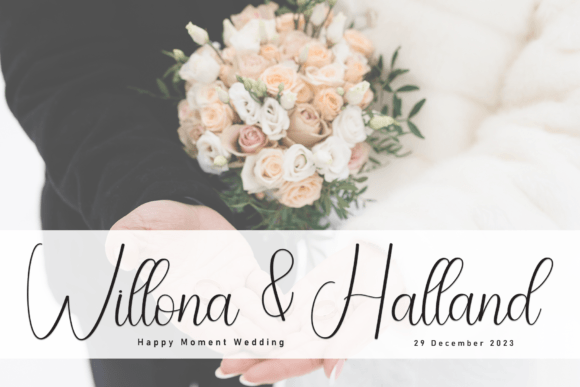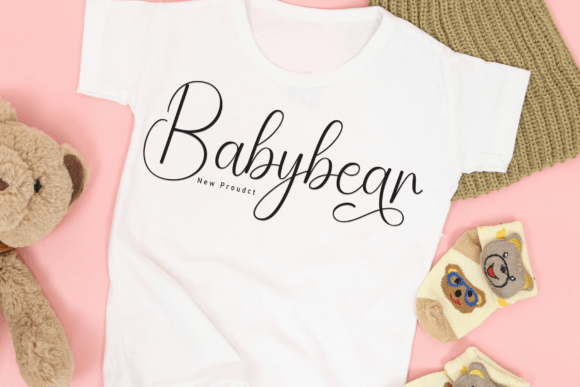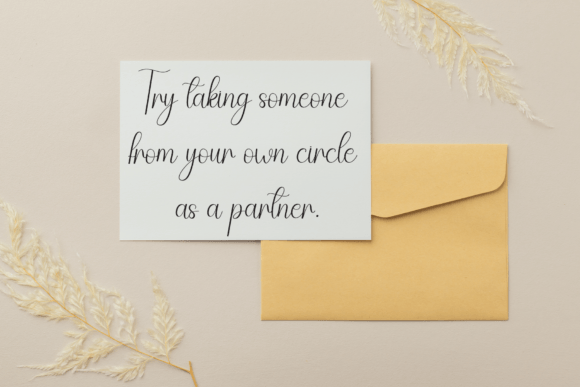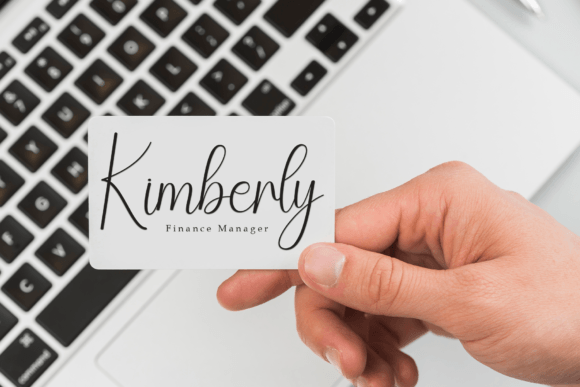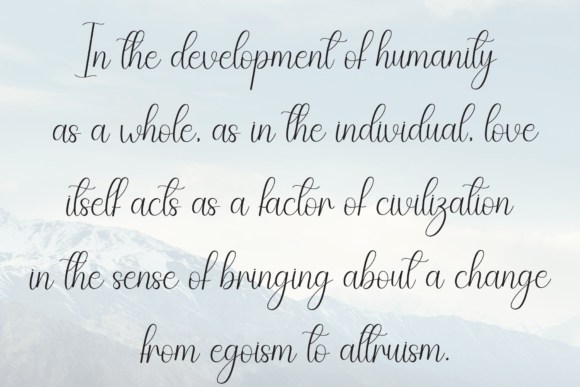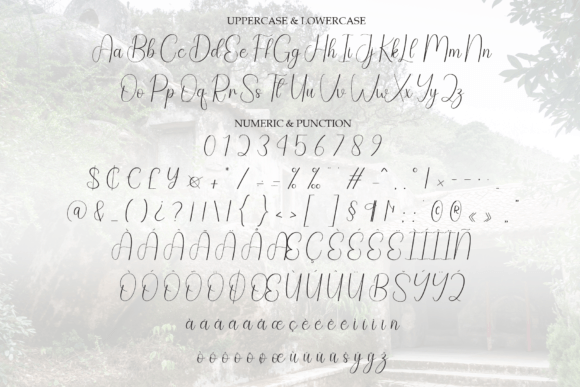
Cryptic Font: Add a Sweet and Friendly Touch to Your Designs
Are you looking for a font that can add a playful and whimsical touch to your designs? Look no further than Cryptic Font, a sweet and friendly handwritten display font that’s perfect for a variety of creative projects. In this article, we’ll take a closer look at Cryptic Font, its features, and how you can use it to elevate your designs.
What is Cryptic Font?
Cryptic Font is a beautiful, handwritten display font that’s designed to bring a touch of fun and playfulness to your designs. With its cute and friendly appearance, this font is ideal for writing wedding invitations, cards, or any other design that might need a fun touch. Whether you’re a designer, crafter, or DIY enthusiast, Cryptic Font is a great addition to your font collection.
Key Features of Cryptic Font
So, what makes Cryptic Font so special? Here are some of its key features:
- Handwritten appearance: Cryptic Font has a beautiful, handwritten appearance that’s perfect for adding a personal touch to your designs.
- Sweet and friendly: This font has a sweet and friendly appearance that’s sure to delight your audience.
- Cute and fun: Cryptic Font is perfect for designs that require a playful and whimsical touch.
- Display font: This font is designed to make a statement, making it perfect for headings, titles, and other display text.
Use Cases for Cryptic Font
Cryptic Font is a versatile font that can be used in a variety of creative projects. Here are some use cases to get you started:
- Wedding invitations: Add a touch of romance and whimsy to your wedding invitations with Cryptic Font.
- Cards and stationery: Use Cryptic Font to create cute and playful cards, stationery, and other paper crafts.
- Social media graphics: Add a fun and playful touch to your social media graphics, such as Facebook posts, Instagram stories, and more.
- Signs and posters: Use Cryptic Font to create eye-catching signs and posters that are sure to grab attention.
Tips for Using Cryptic Font
Here are some tips for using Cryptic Font in your designs:
- Pair with other fonts: Cryptic Font pairs well with other fonts, such as sans-serif fonts, to create a visually appealing contrast.
- Use for headings: This font is perfect for headings and titles, but can also be used for body text in small doses.
- Experiment with colors: Cryptic Font looks great in a variety of colors, so don’t be afraid to experiment and find the perfect hue for your design.
In conclusion, Cryptic Font is a sweet and friendly handwritten display font that’s perfect for adding a playful and whimsical touch to your designs. With its cute and fun appearance, this font is ideal for a variety of creative projects, from wedding invitations to social media graphics. Whether you’re a designer, crafter, or DIY enthusiast, Cryptic Font is a great addition to your font collection.